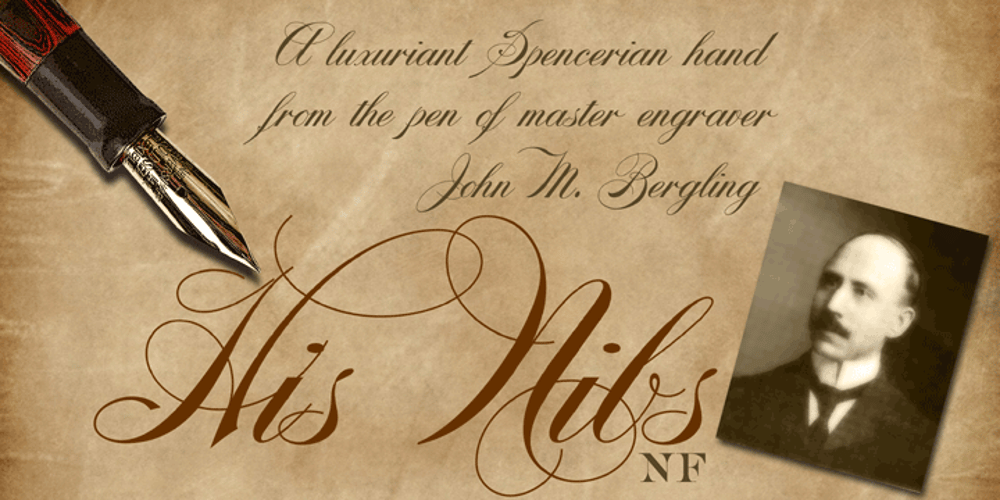
His Nibs NF Font Family was designed by Nick Curtis, J.M. Bergling and published by Nick’s Fonts. His Nibs NF contains 1 styles and family package options. This swoopy, loopy script was inspired by an “American roundhand” presented by John M. Bergling in his Art Alphabets and Lettering, first published in 1914. Bergling’s unique talent crafted uppercase letters which manage, at the same time, to be both elegant and ostentatious. The PC Postscript, Truetype and Opentype versions contain the complete Latin language character set (Unicode 1252) plus support for Central European (Unicode 1250) languages as well.